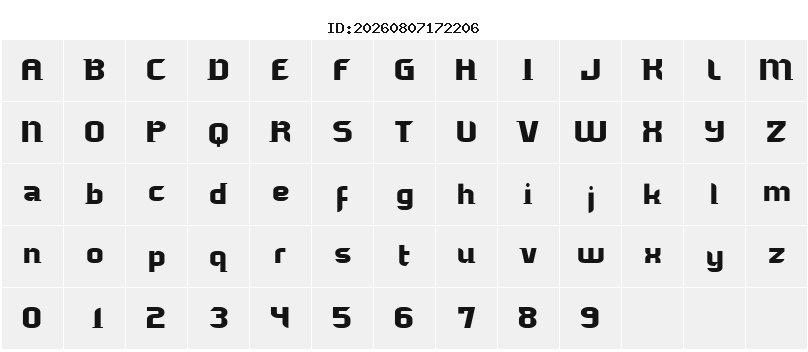
OWOReactor Preview
• Font Name: OWOReactor
• Full Font Name: OWOReactor
• PostScript Name: OWOReactor
About OWOReactor.ttf
OWOReactor.ttf is a modern, elegant sans-serif font designed for ultimate readability and visual harmony. Perfect for branding, headlines, web design, and print materials.